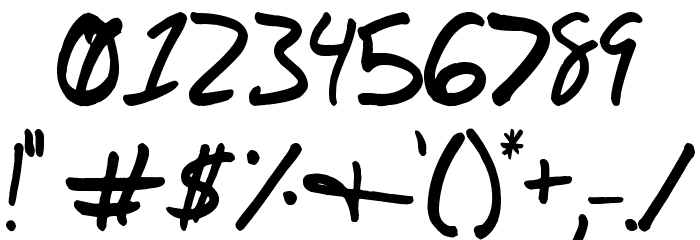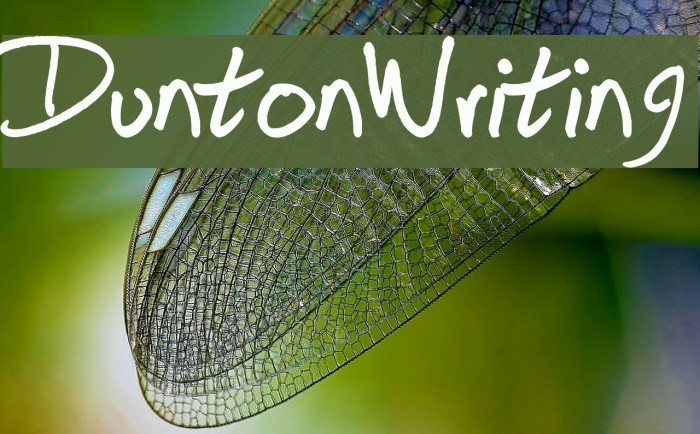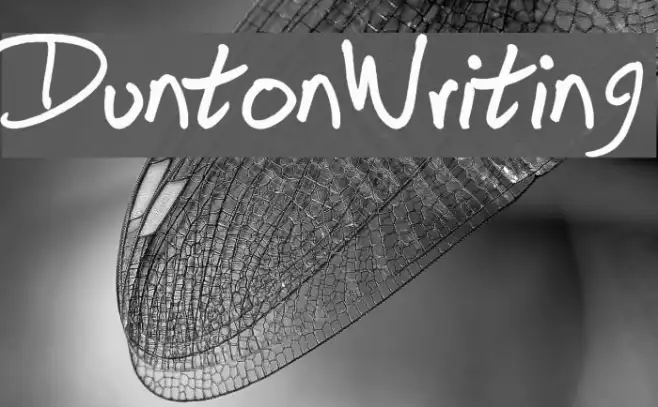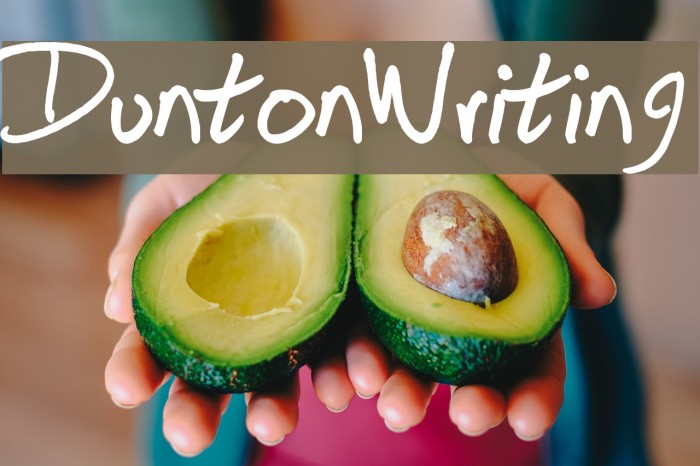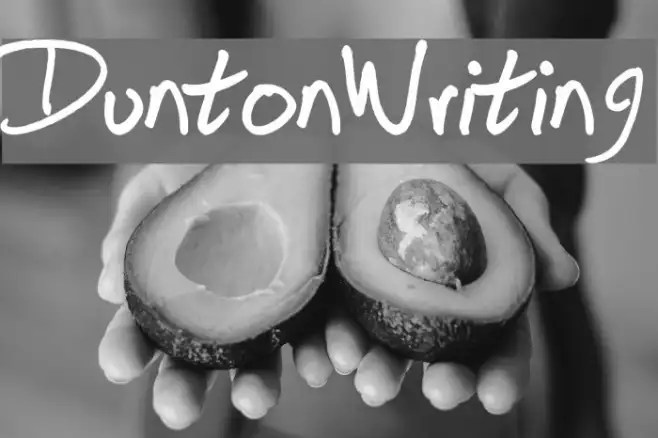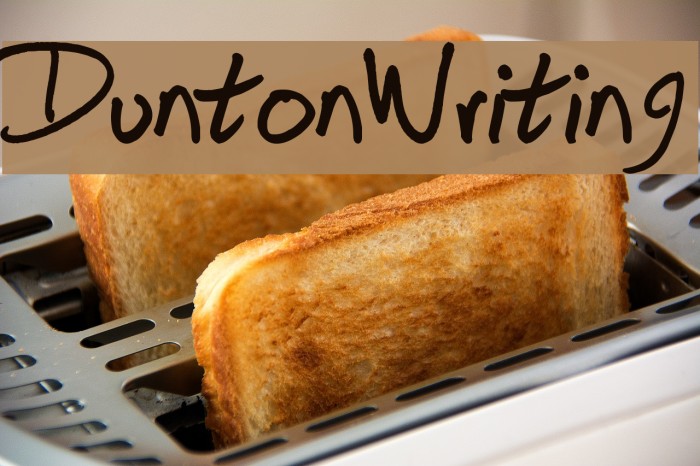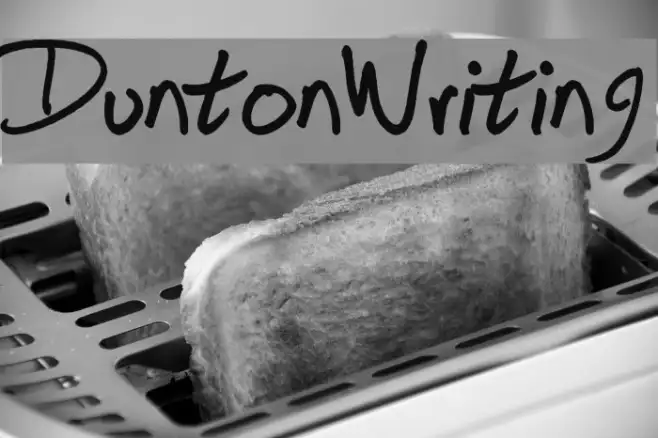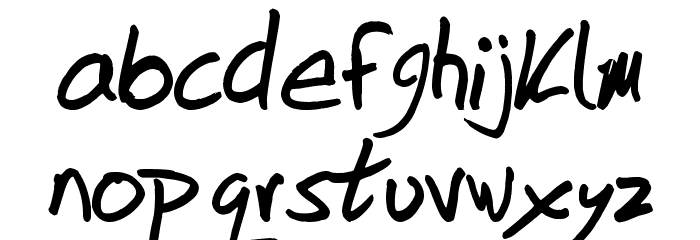
DuntonWriting Font
This font exhibits a dynamic and expressive handwritten style, characterized by its fluid and irregular strokes. The uppercase letters are bold and slightly slanted, giving a sense of movement and energy. The lowercase letters maintain a consistent flow, with some characters featuring unique loops and curves that add personality. Numbers are bold and clear, matching the overall style. Special characters are creatively designed, maintaining the handwritten aesthetic. This font is perfect for projects that require a personal touch or a casual, artistic vibe.
A dynamic, expressive handwritten font with fluid strokes and bold characters.
• Proposed Projects: Ideal for greeting cards, personal branding, artistic posters, and creative social media graphics.
• Category: Handwritten
• Bold: Yes
• Italic: No
• Weight: Bold
• Width: Normal
• Character Spacing: Normal
• Contrast: Medium
• Overall Style: Decorative
• Use Case: Logos, Headlines, Artistic projects